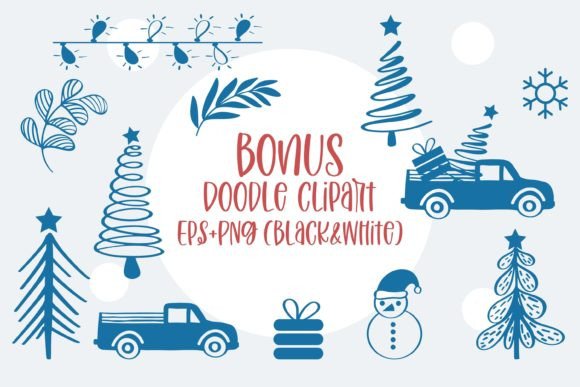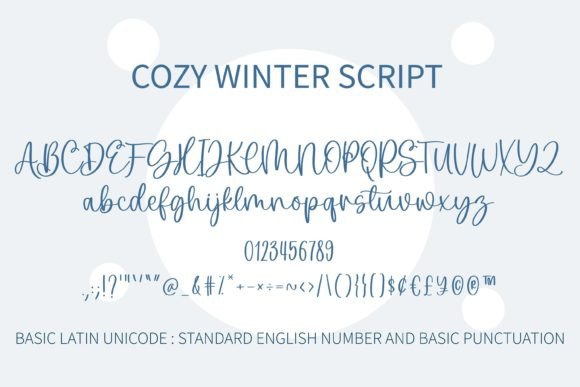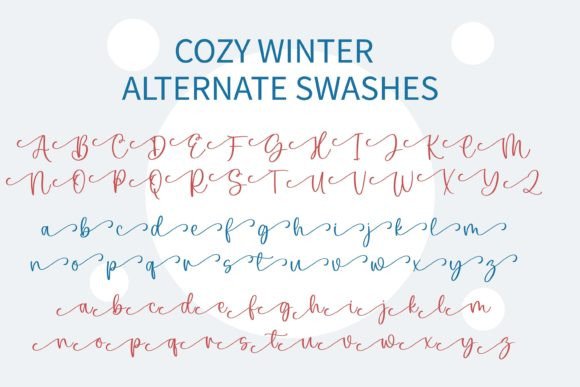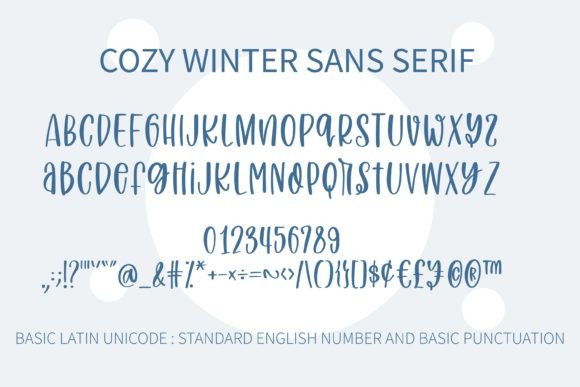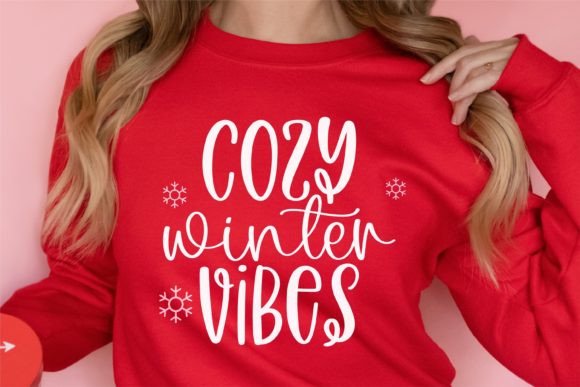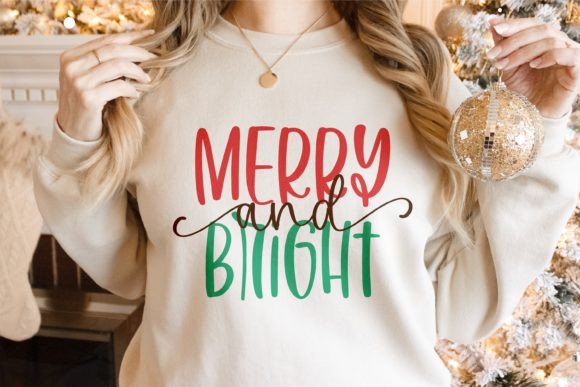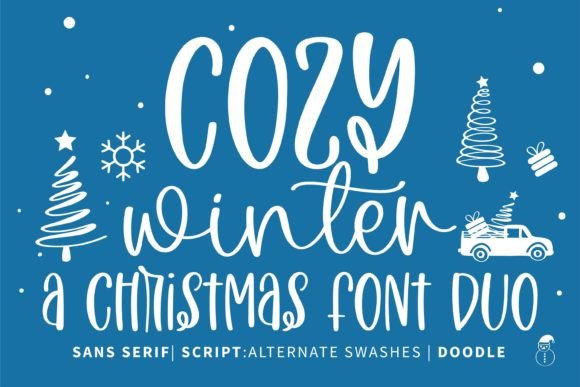
Cozy Winter Duo Font: The Perfect Handwritten Font for Your Winter Designs
As the winter season approaches, designers and crafters are on the lookout for the perfect font to add a touch of warmth and coziness to their designs. Look no further than the Cozy Winter Duo Font, a beautiful handwritten duo font that combines a sans serif and script style to create a unique and natural look.
What is Cozy Winter Duo Font?
Cozy Winter is a handwritten duo font that consists of two font styles: a sans serif and a script font. This duo font is perfect for designers who want to add a personal touch to their designs, whether it’s for a winter-themed project, a branding campaign, or a craft project. The font’s natural and unique style makes it incredibly fitting for a large pool of designs, from festive holiday cards to cozy winter-themed packaging.
Key Features of Cozy Winter Duo Font
So, what makes Cozy Winter Duo Font so special? Here are some of its key features:
- PUA Encoded: Cozy Winter is PUA (Private Use Area) encoded, which means that you can access all of the glyphs and swashes with ease. This makes it easy to use the font in your designs, even if you’re not a professional font user.
- Handwritten Style: The Cozy Winter font has a beautiful handwritten style that adds a personal touch to your designs. The font is perfect for creating a warm and cozy atmosphere in your designs.
- Duo Font: The Cozy Winter font comes with two font styles: a sans serif and a script font. This allows you to mix and match the fonts to create a unique look that’s all your own.
- Unique and Natural Style: The Cozy Winter font has a unique and natural style that makes it perfect for a wide range of designs. Whether you’re creating a winter-themed design or a branding campaign, this font is sure to impress.
Uses for Cozy Winter Duo Font
So, what can you use Cozy Winter Duo Font for? The possibilities are endless! Here are a few ideas to get you started:
- Winter-themed designs: Cozy Winter is perfect for winter-themed designs, such as holiday cards, snowflakes, and winter-themed packaging.
- Branding campaigns: The Cozy Winter font is also great for branding campaigns, such as logos, business cards, and letterheads.
- Craft projects: Crafters will love using Cozy Winter for their projects, such as scrapbooking, journaling, and card making.
- Social media graphics: Cozy Winter is also perfect for social media graphics, such as Facebook posts, Instagram stories, and Pinterest graphics.
Tips for Using Cozy Winter Duo Font
Here are a few tips for using Cozy Winter Duo Font in your designs:
- Mix and match the fonts: Don’t be afraid to mix and match the sans serif and script fonts to create a unique look.
- Use the glyphs and swashes: Take advantage of the PUA encoding and use the glyphs and swashes to add a personal touch to your designs.
- Experiment with colors: Cozy Winter looks great in a variety of colors, so don’t be afraid to experiment and find the perfect color for your design.